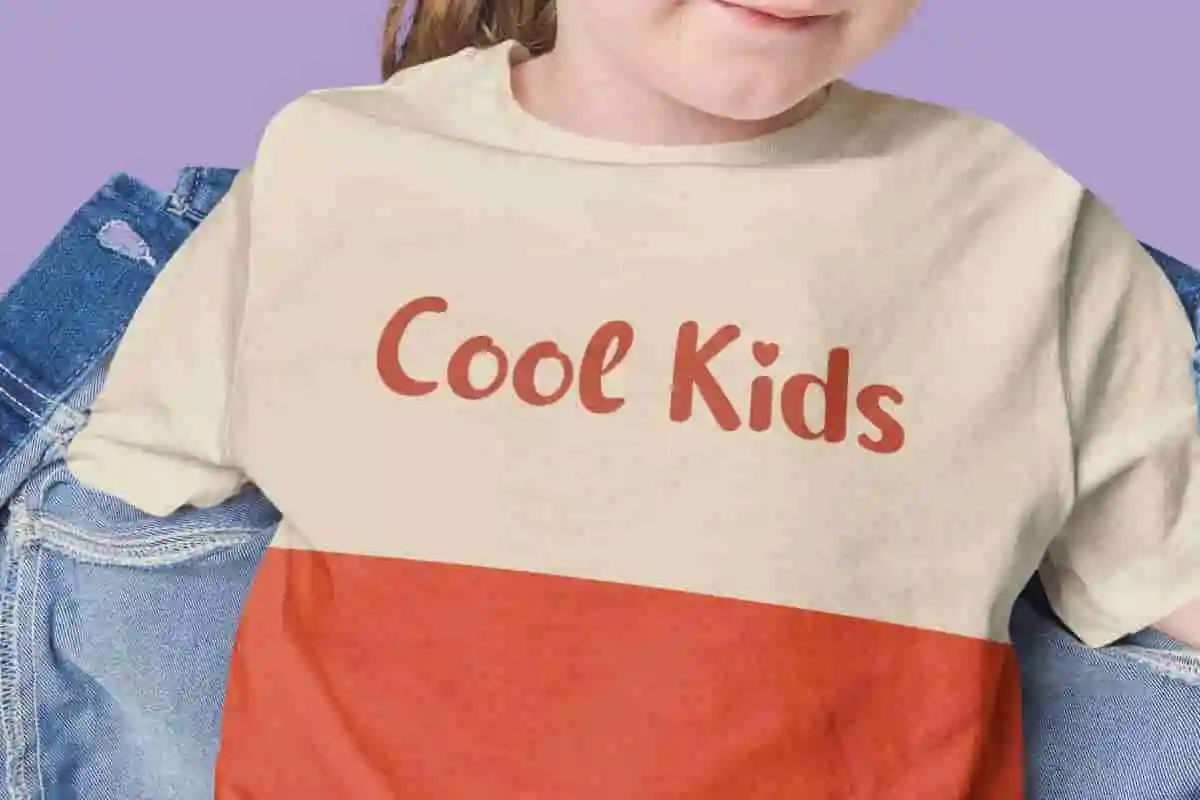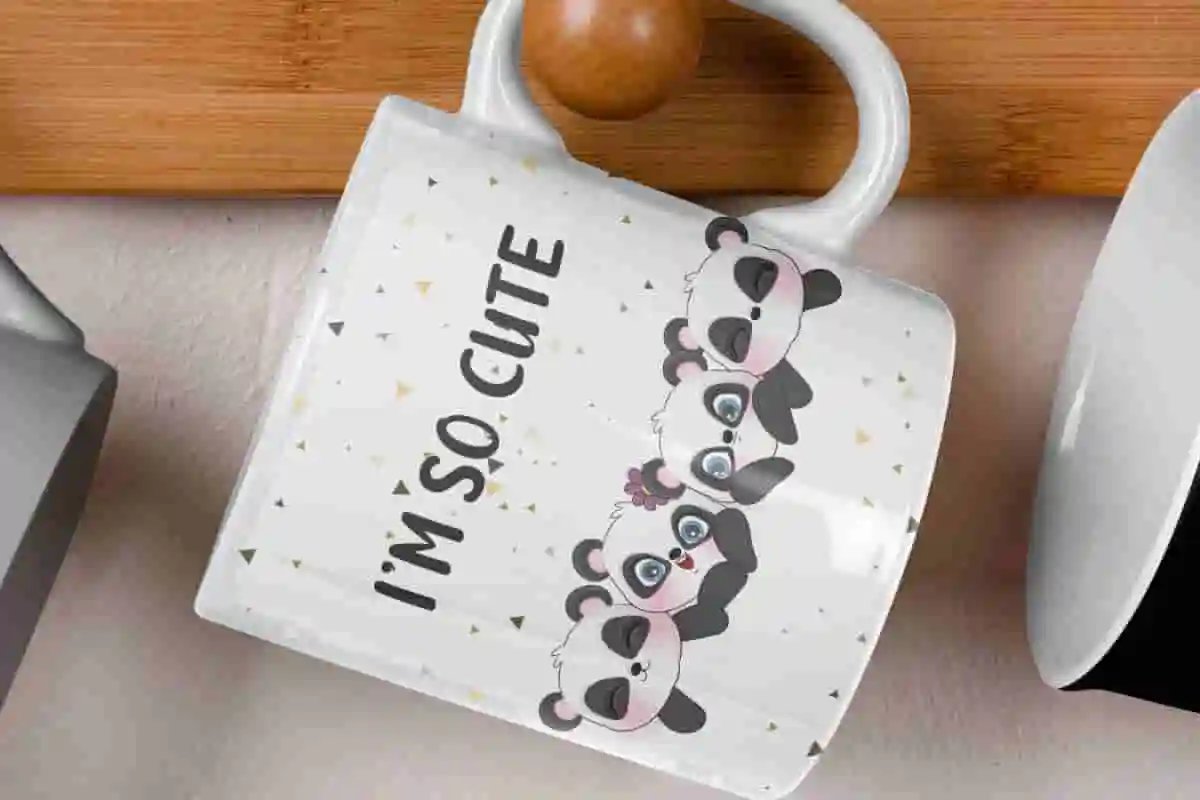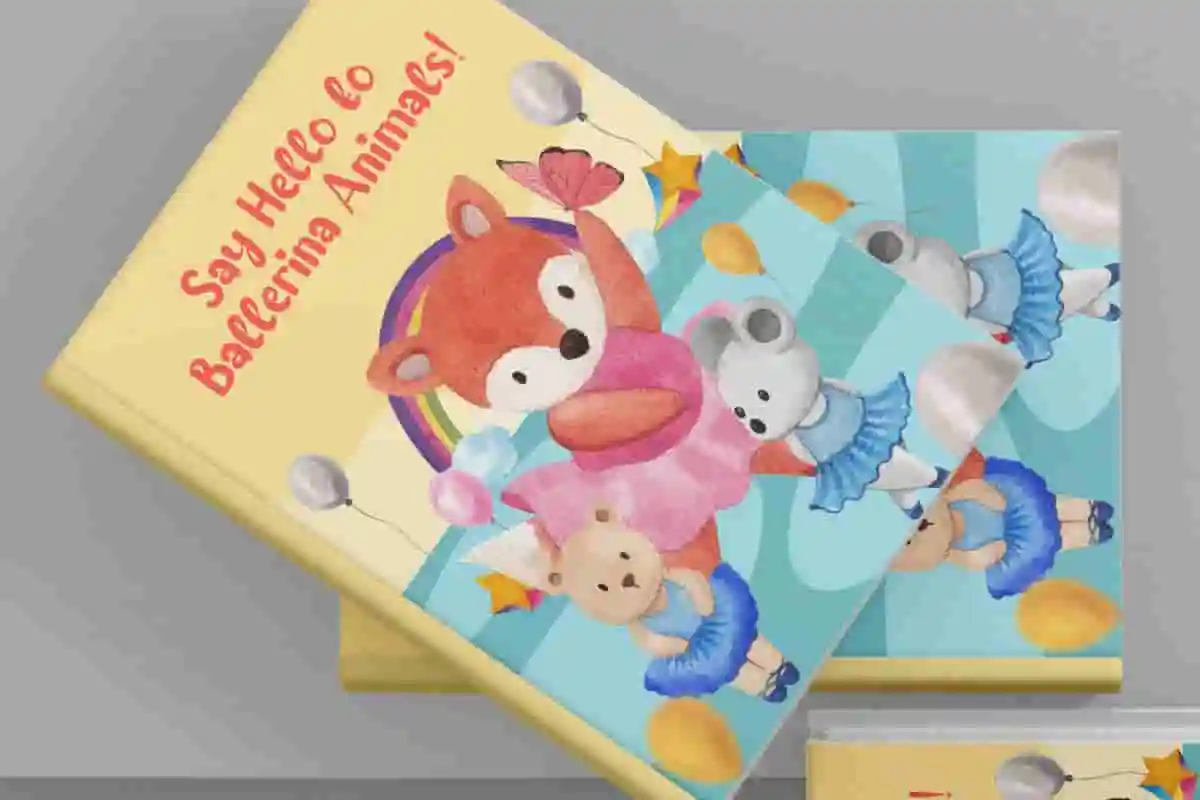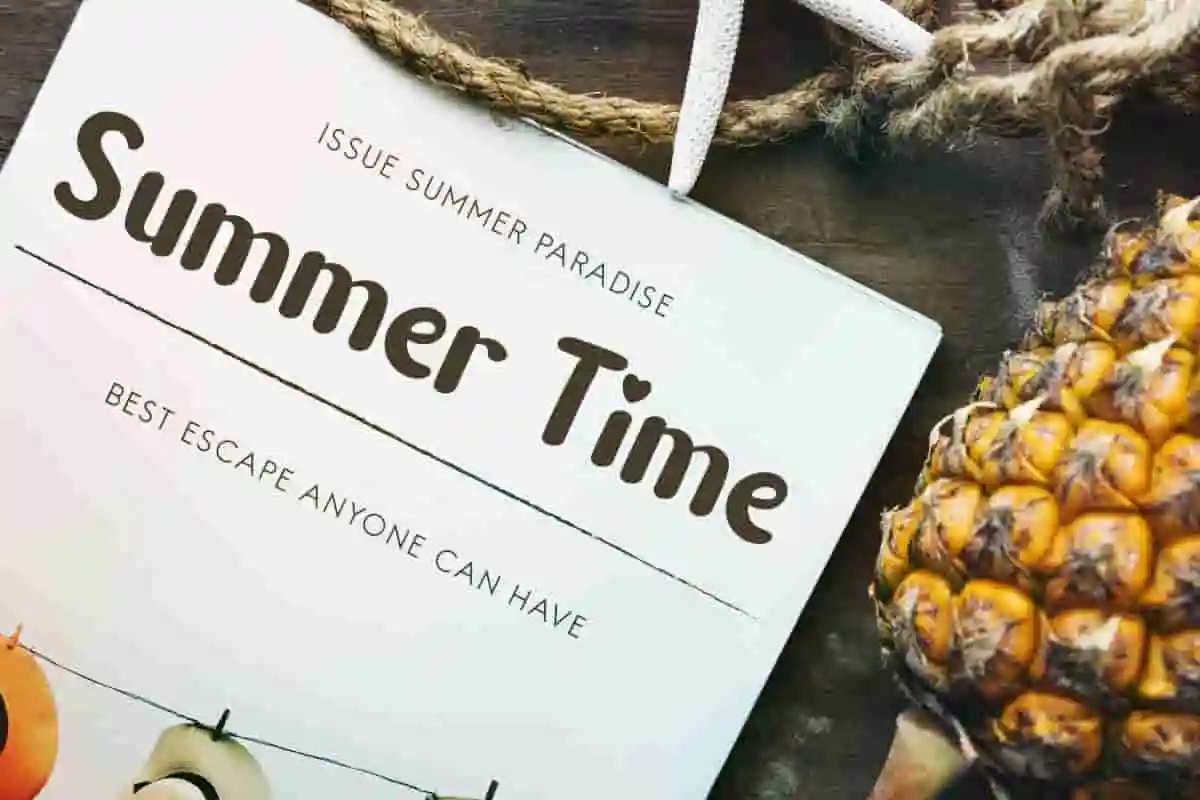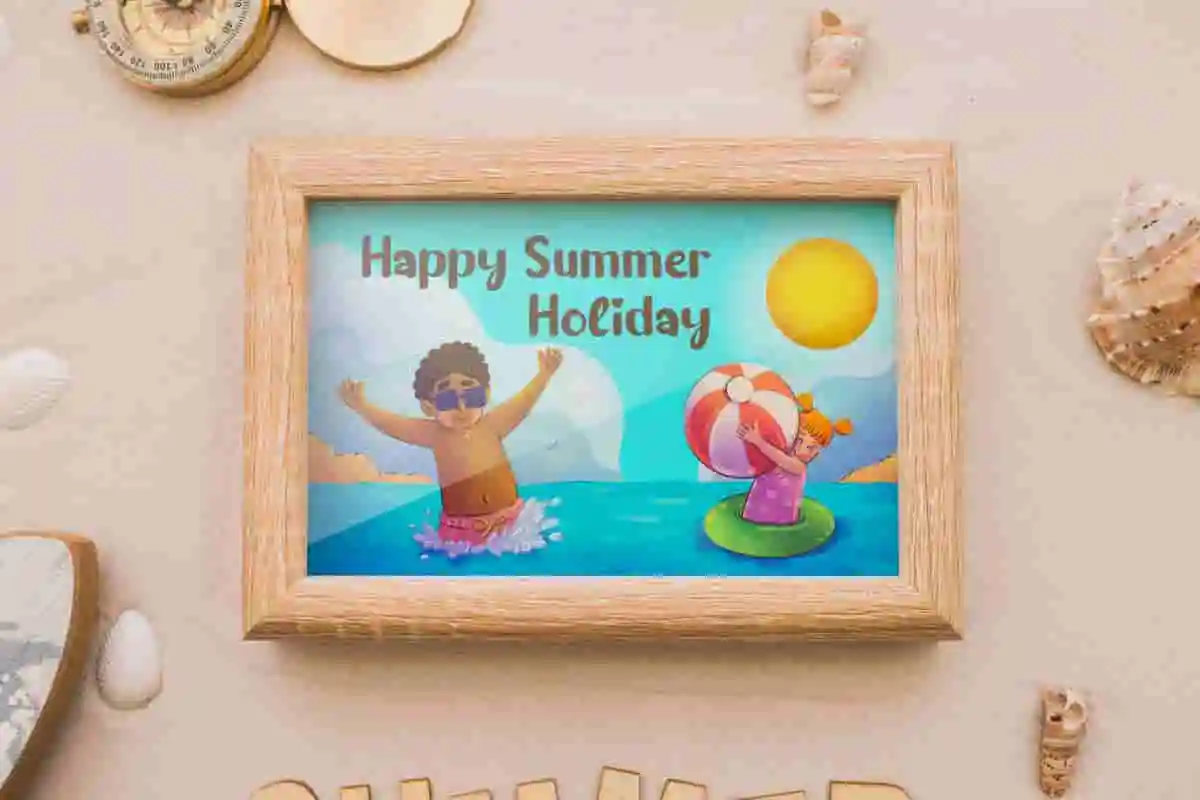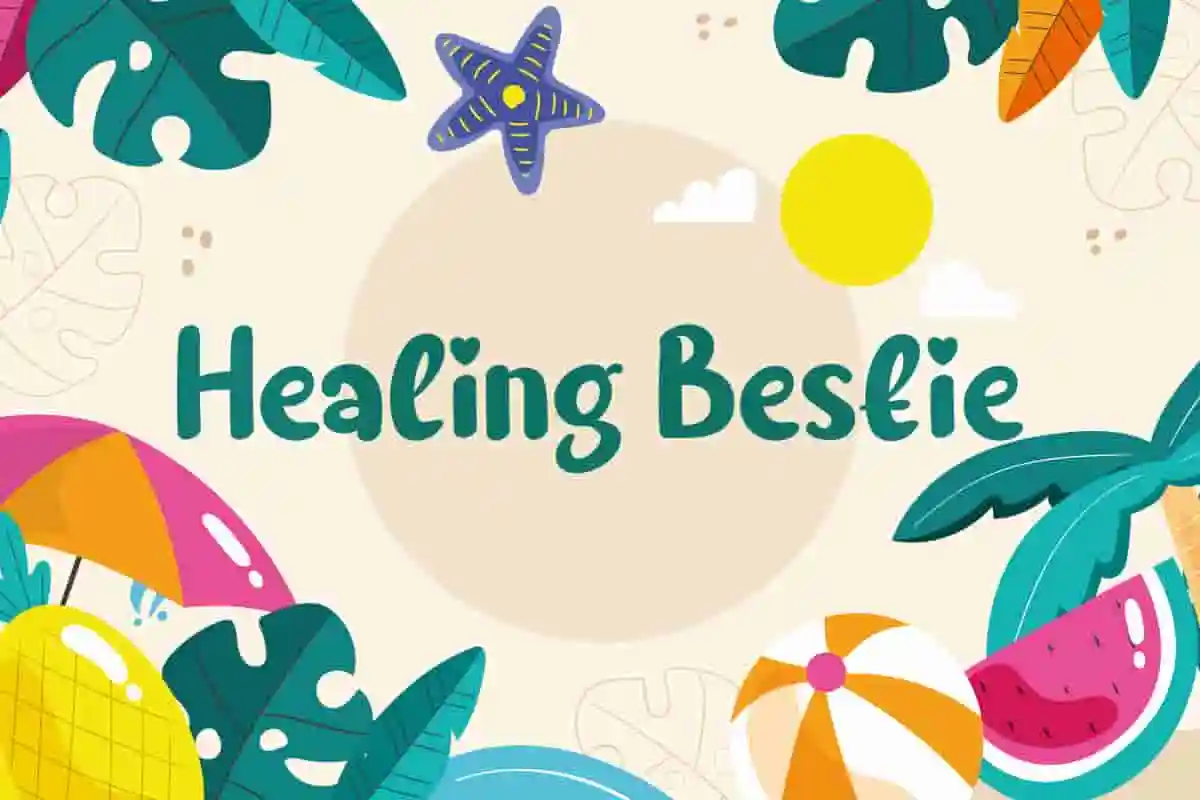
Healing Bestie Font
Healing Bestie Font is a loveable chubby fat display font. It will really feel fun and fulfill your needs when being creative.
Healing Bestie Font is a cute and loveable chubby slightly fat display font. It will make whatever business you are in feel more interesting, such as advertisement, bakery, children’s stuffs, chocolate brand, clothing brand, coffee shop, craft, event organizer, food or beverage, glassware, graphic design, movie, printing, publishing, restaurant, retail, school, toy, writer, and more.
Healing Bestie Font includes a full set of Uppercase and Lowercase Basic Characters, Number, Punctuation, and Symbol. It will bring pleasant things to your design, such as apps, billboard, blog, brand logo, brochure, cover, header, invitation, label design, poster, product packaging, quote, screen print, social media post, stationery, sticker, title, watermark, website, etc.